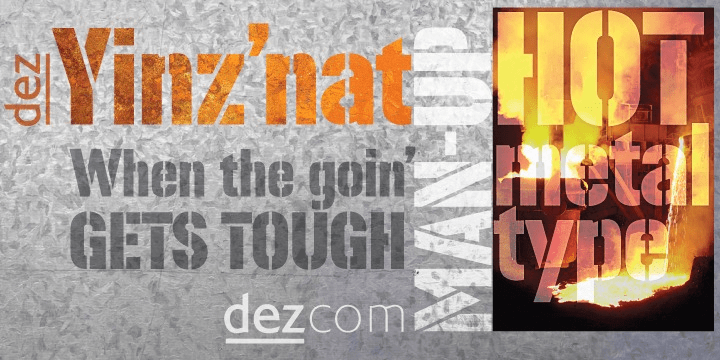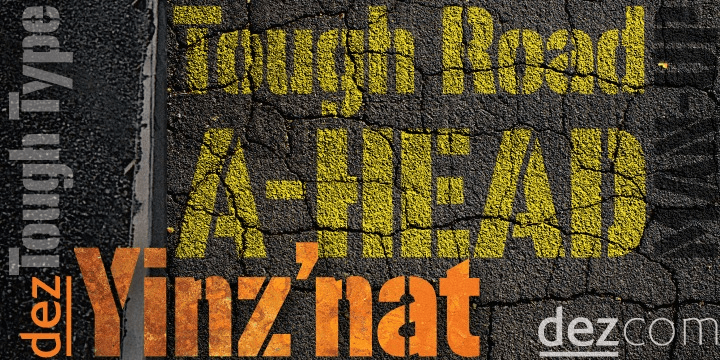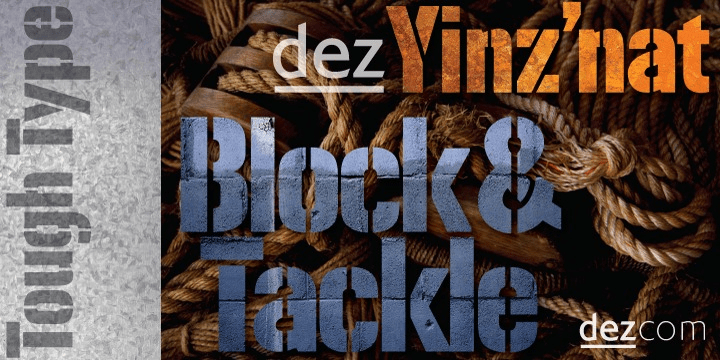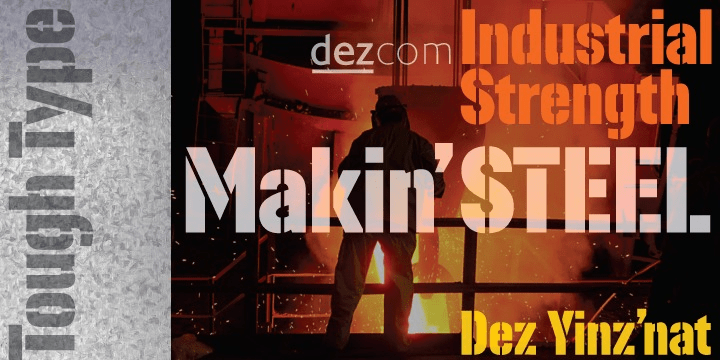
Dez Yinznat Stencil
Font Family by Dezcom
Dez Yinznat Stencil is a condensed stencil sans serif inspired by the industrial city of Pittsburgh, PA USA. Stencil type was often used in the steel mills, scrap metal yards, railroads, warehouses, and other industrial institutions of Pittsburgh and is almost a signature for the City. The name comes from combining two colloquial expressions common to Pittsburgh. "Yinz" is used there like "Y'all" is used in Southern States. "n'at" or sometimes "N@" is used to replace "and that" when ending a phrase. This font is dedicated to the hard-working people who made Pittsburgh what it is, N@.
High-tech subjects can also find a friend in Dez Yinz'nat.